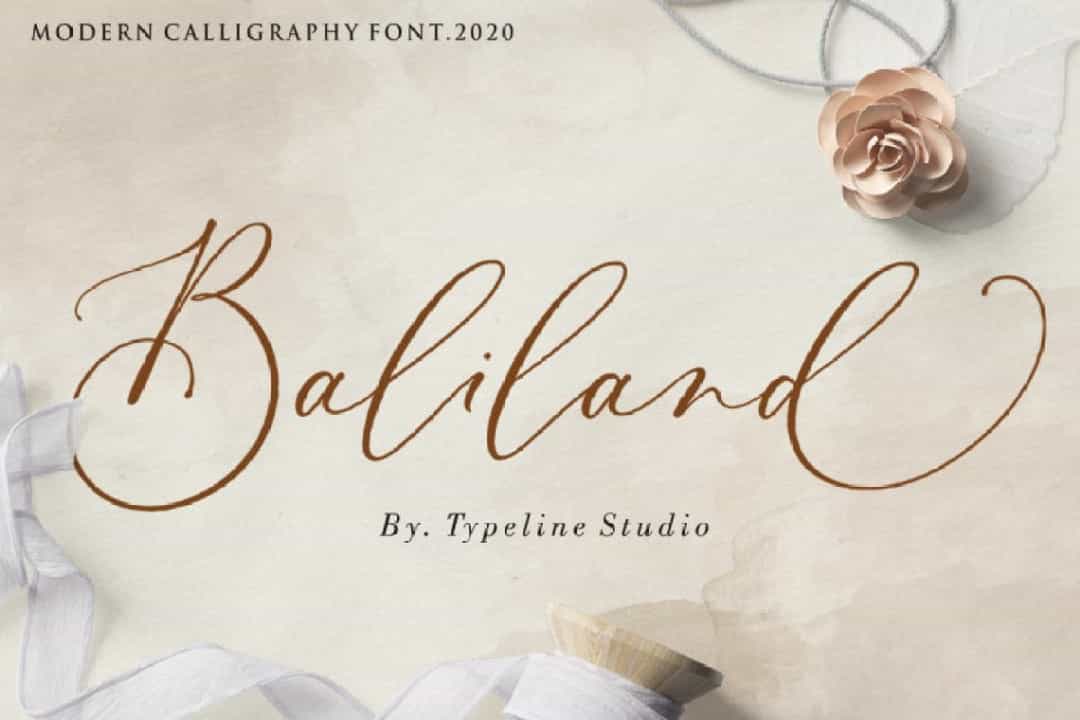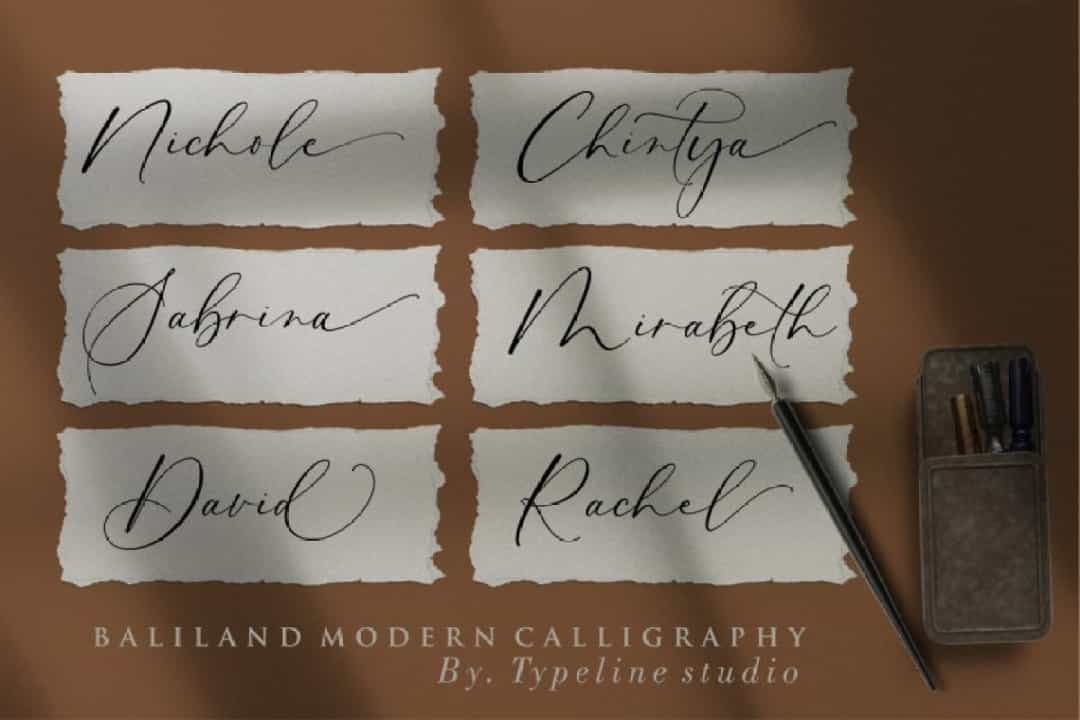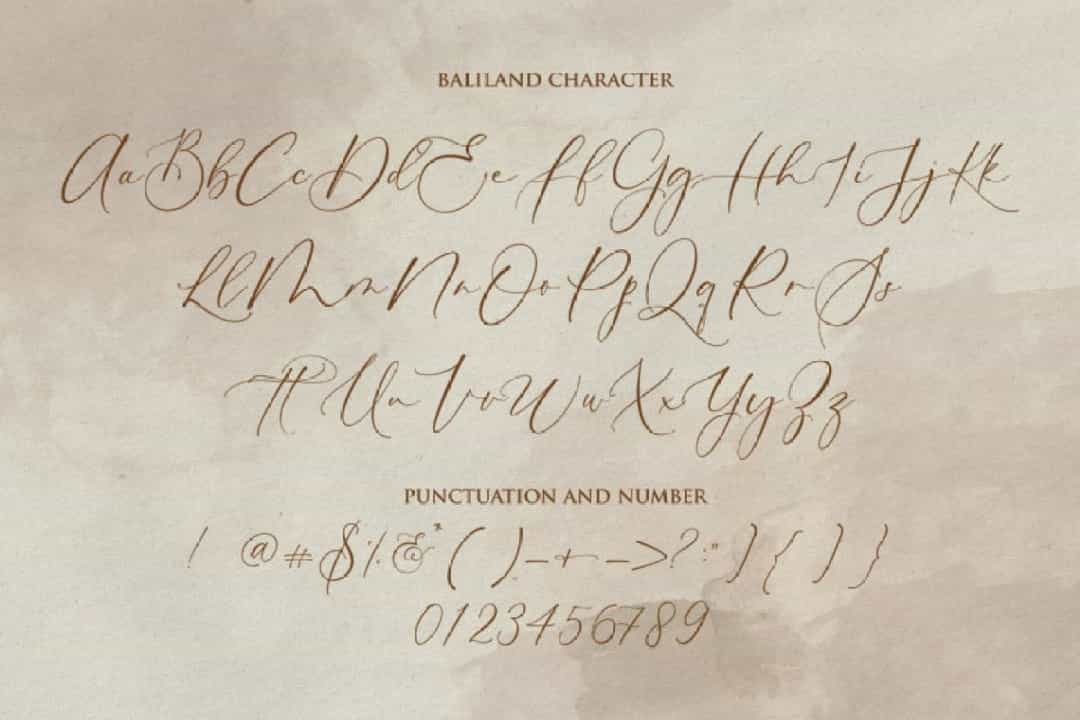
Baliland is a contemporary calligraphy font inspired by Bali insland’s stunning beauty and romance, making this font ideal for use when creating wedding invitation cards, bail, rsvp cards or creating feminine logos and branding.